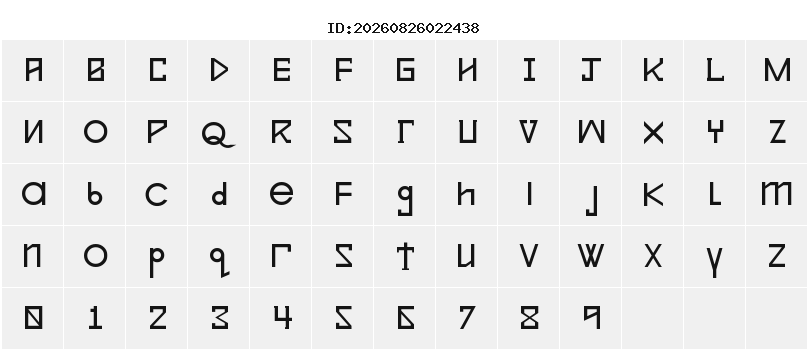
xxjjoosengx33xx Classic Preview
About xxjjoosengx33xx Classic.ttf
xxjjoosengx33xx Classic.ttf is a modern, elegant sans-serif font designed for ultimate readability and visual harmony. Perfect for branding, headlines, web design, and print materials.